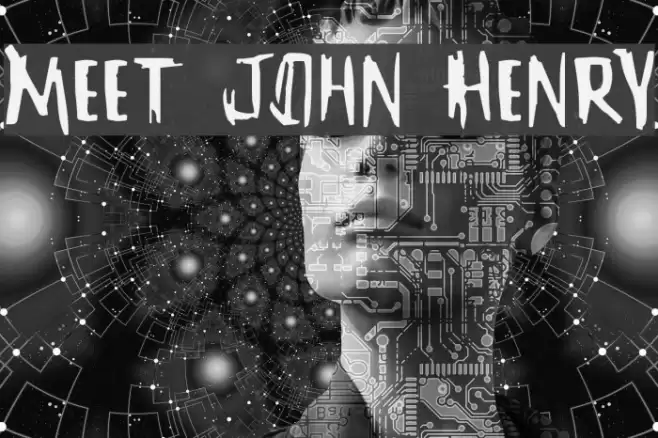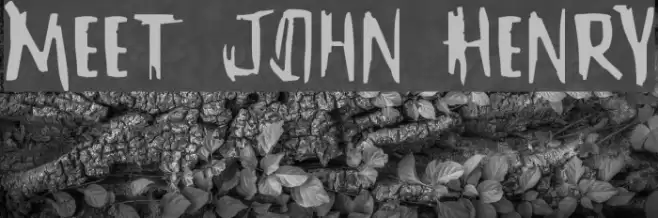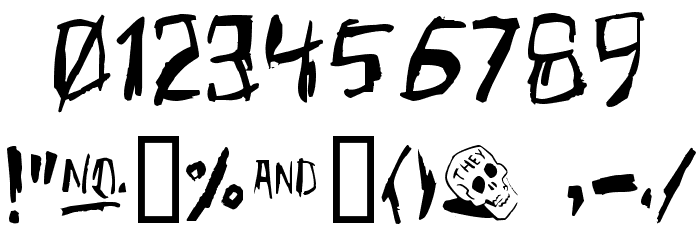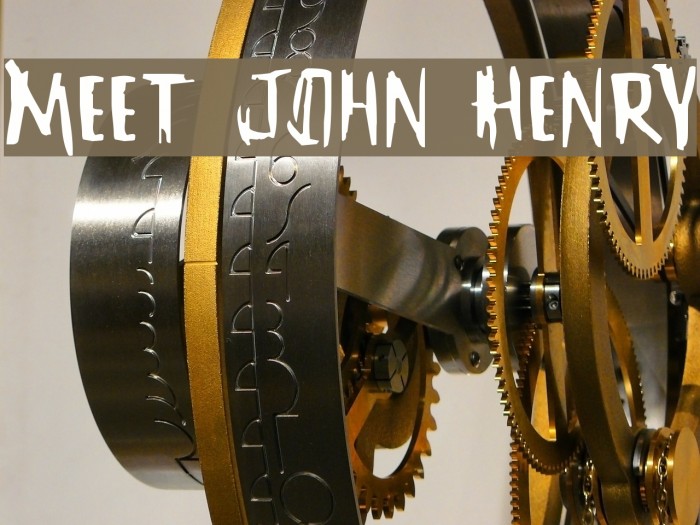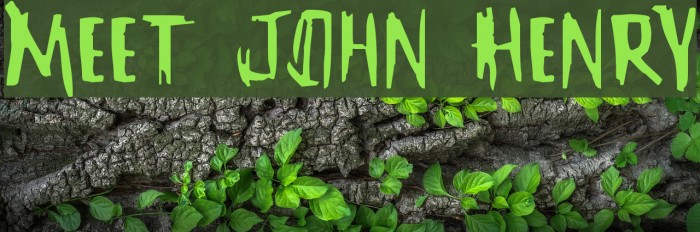
Meet John Henry Font
Meet John Henry Description
This font features a bold, hand-drawn style with a rough, edgy appearance. The characters are irregular and slightly distorted, giving them a unique, rebellious feel. The uppercase and lowercase letters maintain a consistent style, with jagged edges and varying stroke widths that add to the font's dynamic and energetic look. Numbers and special characters follow the same aesthetic, ensuring a cohesive design. The font's raw and expressive nature makes it ideal for projects that require a bold statement or a touch of grunge.
A bold, hand-drawn font with a rough, edgy style from Handwritten fonts.
- Proposed Projects: Ideal for music album covers, posters, streetwear branding, and edgy graphic designs.